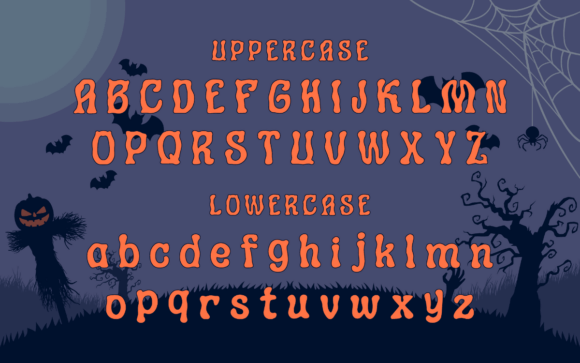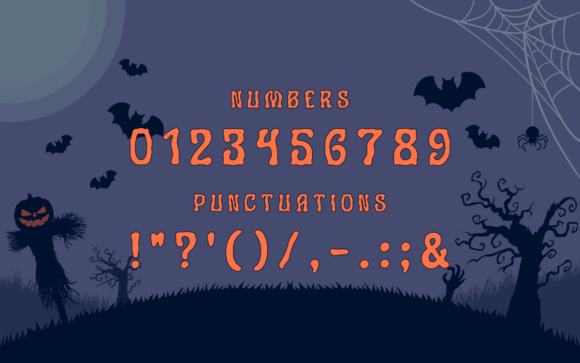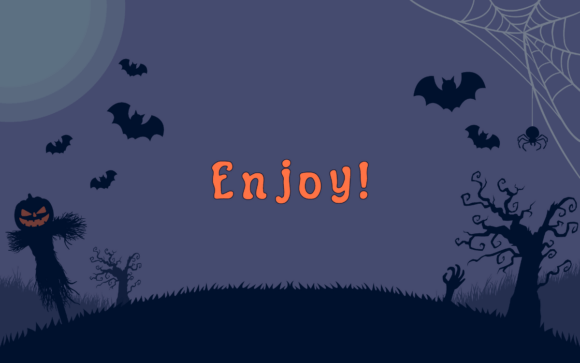
Unleash the Spooky Spirit with Boo Vibes Font: A Halloween-Themed Design Delight
As the spookiest season approaches, designers and crafters are on the lookout for the perfect typography to capture the essence of Halloween. Look no further than the “Boo Vibes” font, a playful and eerie typeface that’s sure to cast a spell on your audience. With its bold, wavy letters and retro-inspired curves, this font is the perfect addition to your design toolkit.
The Personality of Boo Vibes
Boo Vibes is more than just a font – it’s an experience. Each character is infused with a ghostly charm and seasonal flair that’s sure to transport your designs to a world of spooky fun. The bold, wavy letters are reminiscent of classic Halloween signage, while the retro-inspired curves add a touch of nostalgia and whimsy.
Perfect for a Variety of Designs
Whether you’re creating posters, party invites, apparel, or any other design project, Boo Vibes is the perfect choice. The font’s versatility and playfulness make it suitable for a wide range of applications, from:
- Halloween party invitations and decorations
- Spooky-themed posters and flyers
- Haunted house and attraction signage
- Costume and accessory design
- Seasonal apparel and merchandise
Key Features of Boo Vibes
So, what makes Boo Vibes so special? Here are just a few of the key features that set this font apart:
- Bold, wavy letters: Add a touch of drama and whimsy to your designs with the font’s bold, wavy letters.
- Retro-inspired curves: Give your designs a nostalgic feel with the font’s retro-inspired curves.
- Ghostly charm: Each character is infused with a playful, ghostly charm that’s sure to delight.
- Seasonal flair: The font’s seasonal theme is perfect for Halloween and other autumnal celebrations.
Tips for Using Boo Vibes
To get the most out of Boo Vibes, here are a few tips to keep in mind:
- Experiment with colors: Boo Vibes looks great in a variety of colors, from bold and bright to muted and spooky.
- Play with textures: Add depth and interest to your designs with textures and patterns that complement the font’s playful style.
- Mix and match: Combine Boo Vibes with other fonts and design elements to create a unique and eye-catching look.
Where to Use Boo Vibes
Boo Vibes is perfect for a wide range of design projects, including:
- Digital designs: Use Boo Vibes in digital designs, such as social media graphics, blog posts, and email newsletters.
- Print designs: The font is also perfect for print designs, such as posters, flyers, and business cards.
- Crafting and DIY projects: Boo Vibes is a great addition to any crafting or DIY project, from handmade cards to decorative signs.